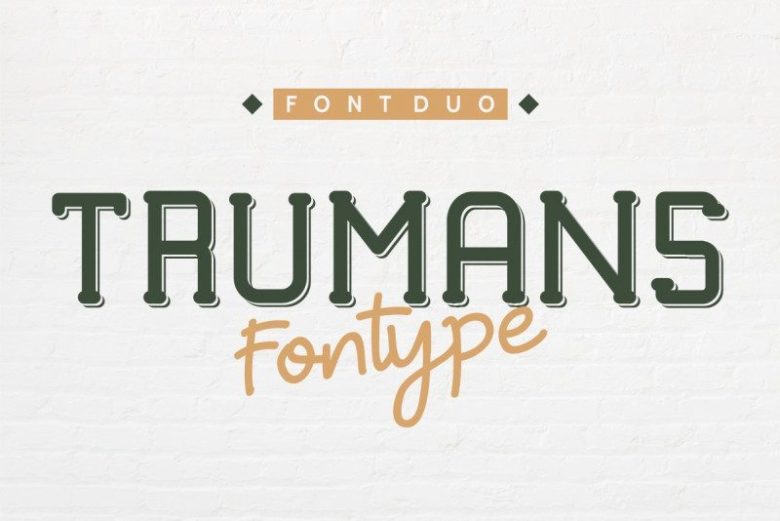
TRUMANS Duo Font Family
Hi Everyone! Introducing our newest font : TRUMANS ! It’s a DUO Font family with FIVE STYLES FONTS All in one font : Regular Sans, Futuristic Stencil, 3D Shadow, handwriting scrip and Outline Sans serif
This is an Exclusive font family. No one has these things: modern, fresh, elegant, minimalist, sharp, rounded, condensed, mono-spaced, handwritten, comic, geek, tech, decorative, retro and stylish glyph.